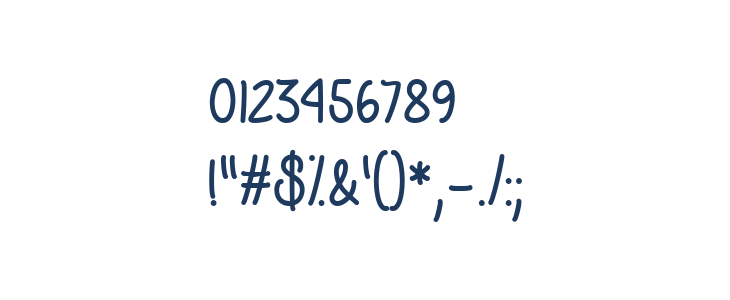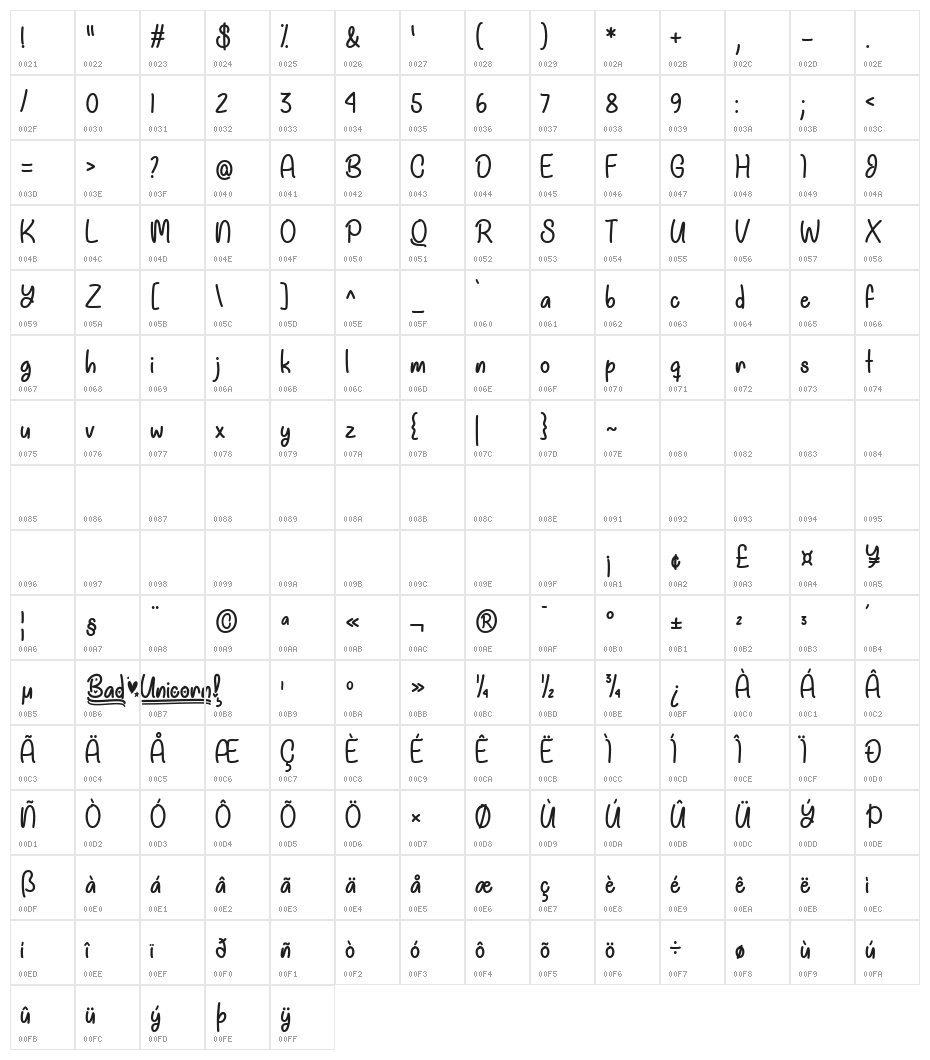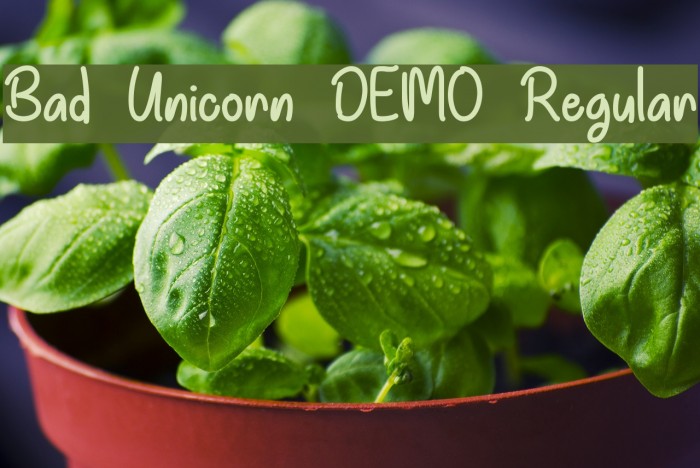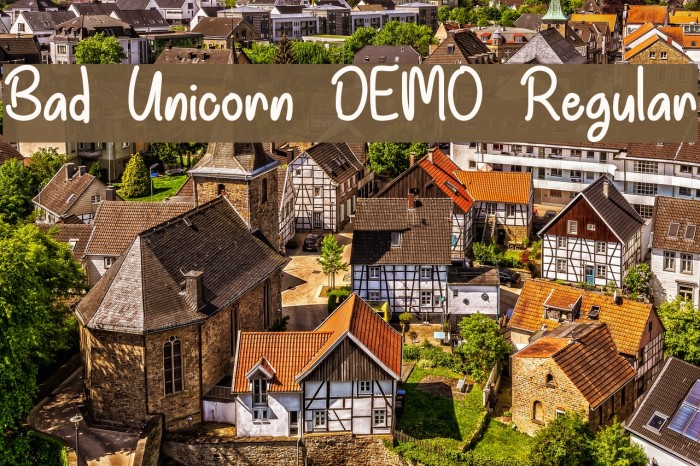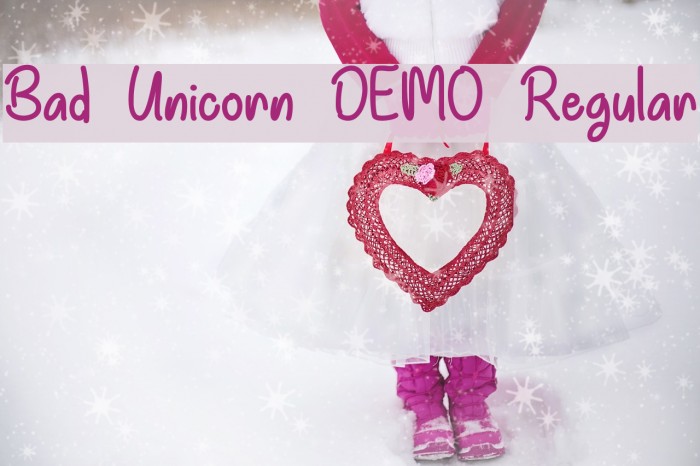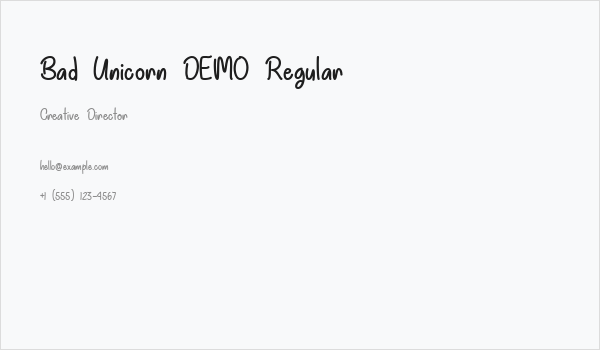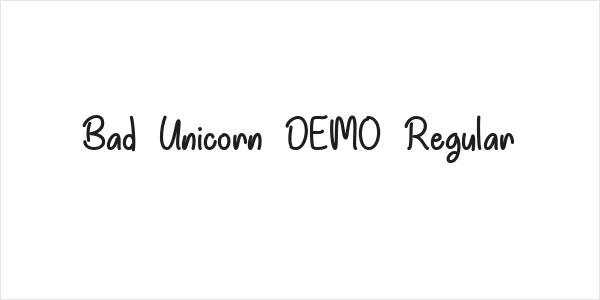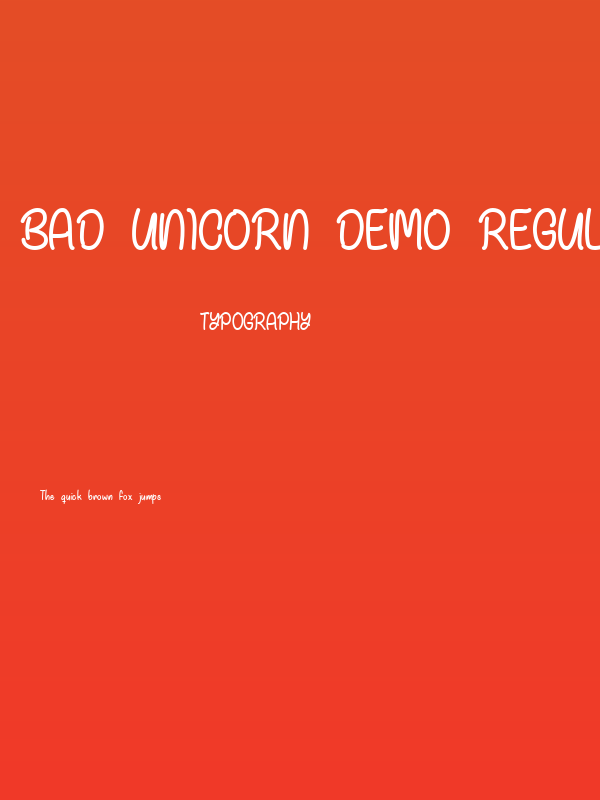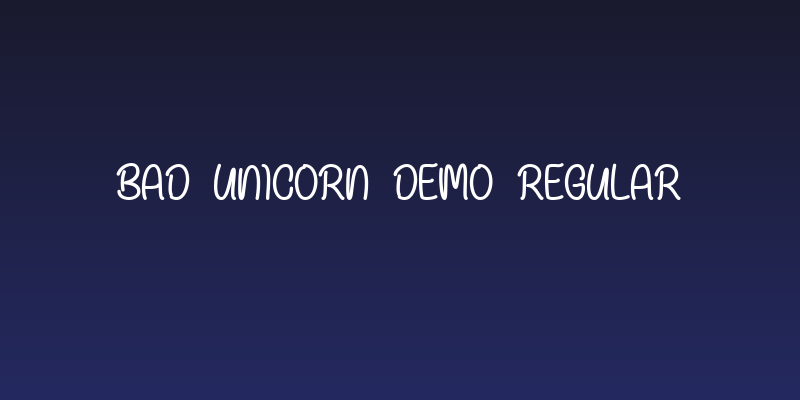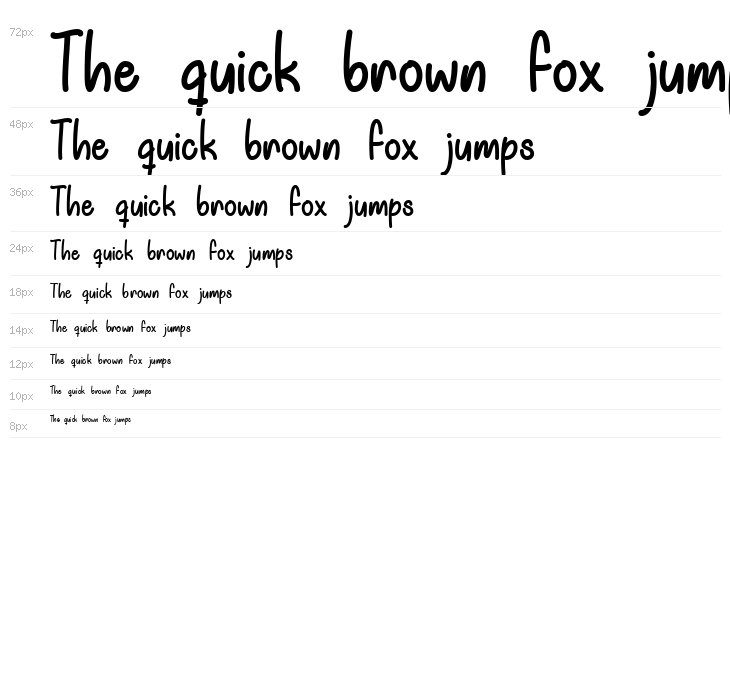
Bad Unicorn DEMO Regular Font
Bad Unicorn DEMO Regular Description
This font features a playful and whimsical style with a handwritten appearance. The characters are rounded and slightly irregular, giving it a casual and friendly look. The uppercase letters are bold and prominent, while the lowercase letters maintain a consistent flow with a slightly narrower form. The numerals are clear and easy to read, matching the overall playful aesthetic. Special characters are included, maintaining the same quirky and informal style. This font is ideal for projects that require a fun and approachable feel.
| Proposed Projects | Great for children's books, playful branding, greeting cards, and informal invitations. |